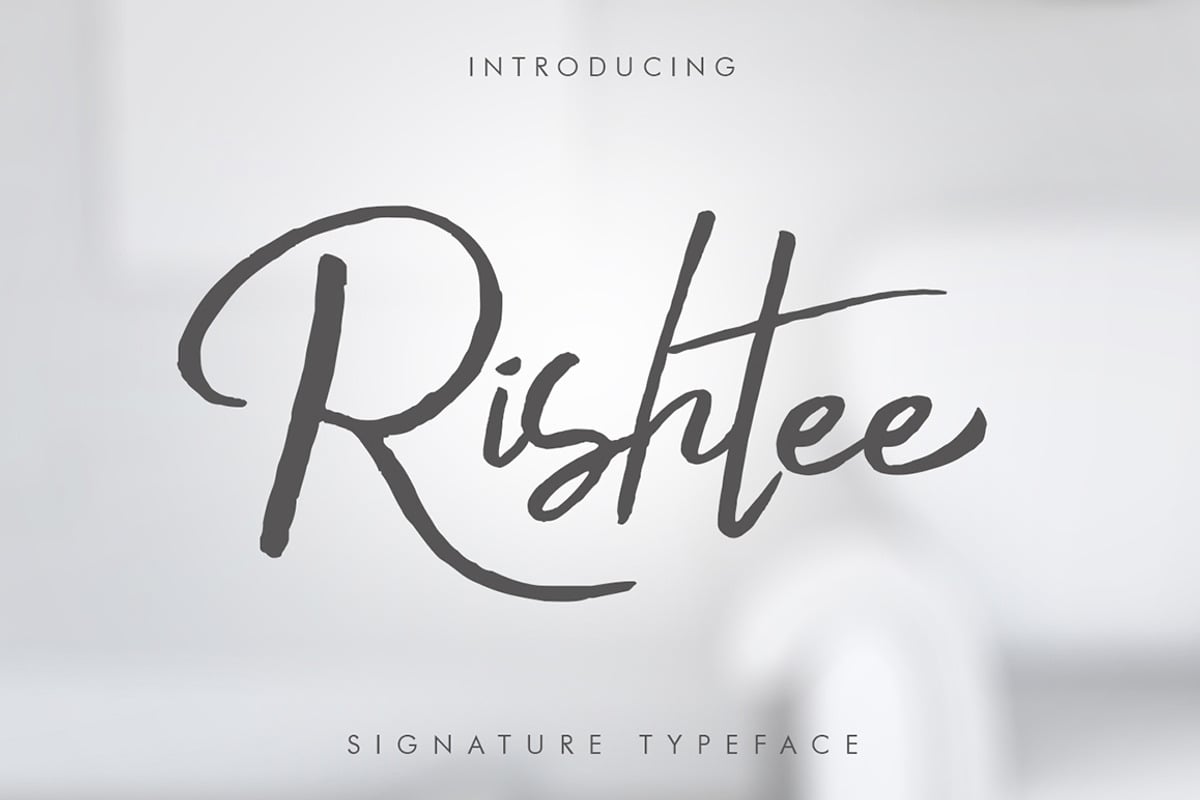
Rishtee Signature Font
Create stunning signatures and elegant designs with this fresh, handmade script typeface that brings sophistication to every project. Rishtee Signature Typeface features a unique handcrafted style that's perfectly suited for a wide range of design applications. This versatile font works beautifully for logos, stationery, posters, apparel, branding, wedding invitations, cards, taglines, layout design, and much more. Files included: Rishtee Regular (otf & ttf) Rishtee Swash (otf & ttf) Ext...